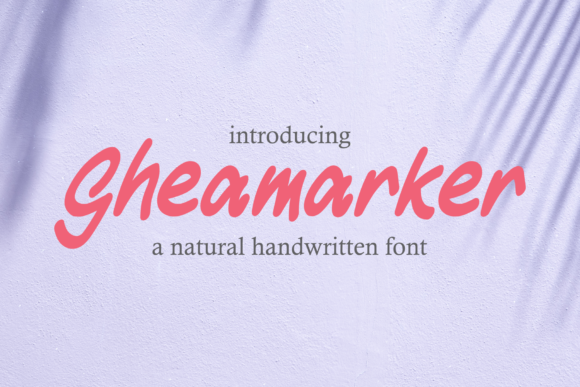
The Perfect Touch: Elevating Your Designs with Gheamarker Font
As a designer, you’ve probably found yourself staring at a blank canvas, searching for that one element that brings your vision to life. The cursor blinks, the thoughts flow, and suddenly, the perfect font pops into your mind. For many, that moment is a game-changer – it’s the difference between a good design and an exceptional one. And for those who’ve discovered the Gheamarker Font, it’s a revelation that can take their projects to the next level.
The Gheamarker Font is a modern, handwritten masterpiece that exudes style and sophistication. With its smooth curves and bold lines, it’s the perfect addition to any fashion branding or editorial design. Whether you’re creating a bold statement or a subtle nuance, this font adds a touch of elegance that’s hard to resist.
Adding the Gheamarker Font to your toolkit is a valuable investment for any designer. Its versatility and readability make it a must-have for projects that require a unique, eye-catching look. With the Gheamarker Font, you’ll discover a new level of creativity and confidence in your work – and that’s a game-changer for any design enthusiast.
Gheamarker Font Key Features
- Font Family: Gheamarker
- Character Set: Latin, Cyrillic, Greek
- Unique Characteristics: Hand-drawn style with intricate details, high-quality vector graphics, and a unique, elegant look
Gheamarker Font Review
As a designer, I was excited to dive into the Gheamarker font and see what it has to offer. ✨ Here are some of the things that caught my attention:
- Unique letterforms: The Gheamarker font has a distinctive, handwritten feel that sets it apart from more traditional serif fonts.
- High legibility: Despite its unique look, the font is still very readable, making it a great choice for body text.
- Excellent for creative projects: The Gheamarker font is perfect for projects that need a touch of personality and whimsy.
However, there are a few limitations to consider ⚠️:
- May not be suitable for formal or professional projects: The Gheamarker font’s playful vibe may not be the best fit for more formal or professional applications.
- Limited font sizes: The font may not scale well to smaller font sizes, which could impact readability.
- No extensive language support: The font may not have full support for all languages, which could limit its usability.
Overall, the Gheamarker font is a fun and creative option that’s perfect for projects that need a unique touch. While it may have some limitations, it’s a great choice for designers looking to add some personality to their work.
Tips: Use the Gheamarker font for titles and headings to create a bold and modern look. Experiment with different font sizes and colors to add depth and visual interest.
Tips: Use the Gheamarker font to create bold and eye-catching text overlays in your Adobe designs. Experiment with different font sizes and colors to add depth and visual interest.
Tips: Use the Gheamarker font to create bold and eye-catching titles and headings in your PowerPoint or Word documents. Experiment with different font sizes and colors to add depth and visual interest.
The Gheamarker font is ideal for:
- Creating bold and modern titles and headings.
- Adding visual interest to text overlays and graphics.